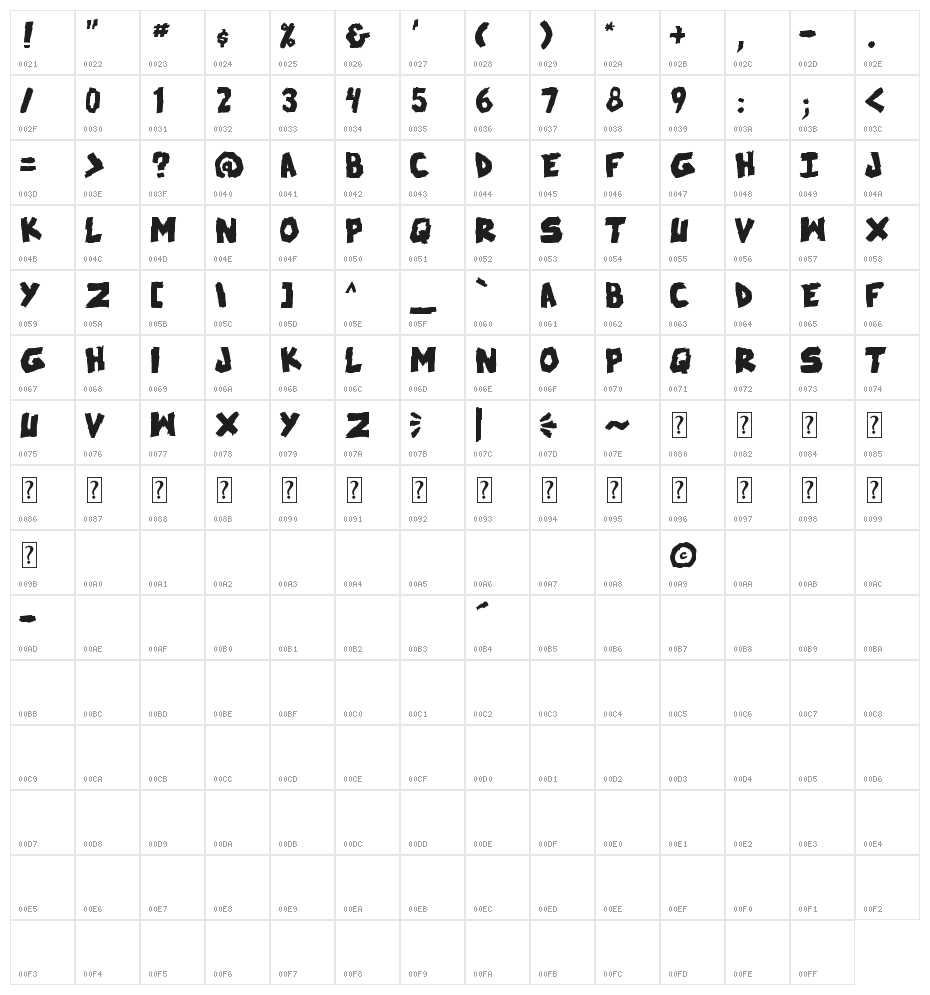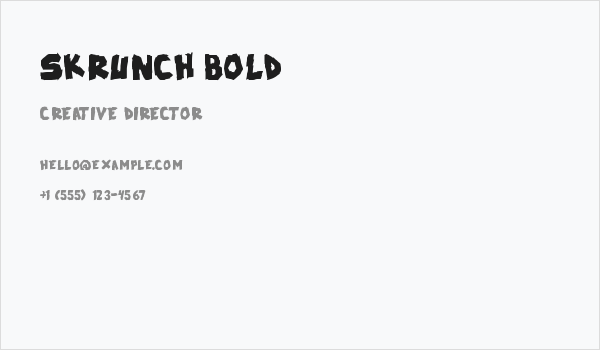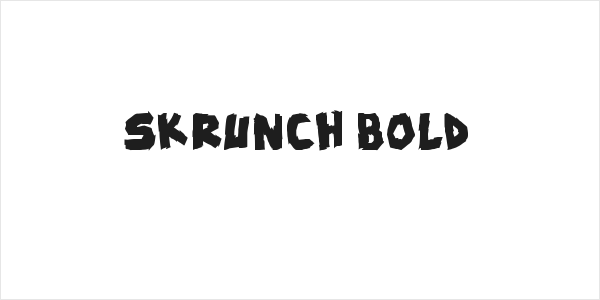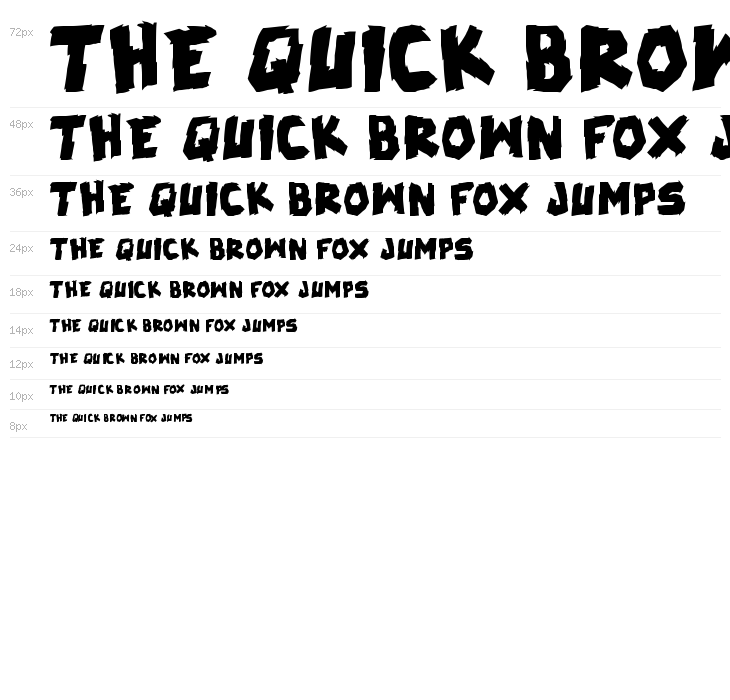
skrunch Bold Font
skrunch Bold Description
This font features a bold and edgy design with irregular, jagged edges that give it a dynamic and energetic appearance. The characters are robust and slightly condensed, creating a sense of urgency and movement. The uppercase and lowercase letters maintain a consistent style, with sharp angles and a hand-drawn feel that adds a touch of rawness. The numbers and special characters follow the same aesthetic, ensuring uniformity across all glyphs. This font is ideal for projects that require a strong visual impact and a modern, unconventional look.
SKRUNCH-BOLD UPPERCASE
SKRUNCH-BOLD LOWERCASE
SKRUNCH-BOLD OTHER CHARS
| Overall Style | Modern, Edgy |
| Proposed Projects | Ideal for music album covers, skateboarding brands, graffiti art, and edgy poster designs. |